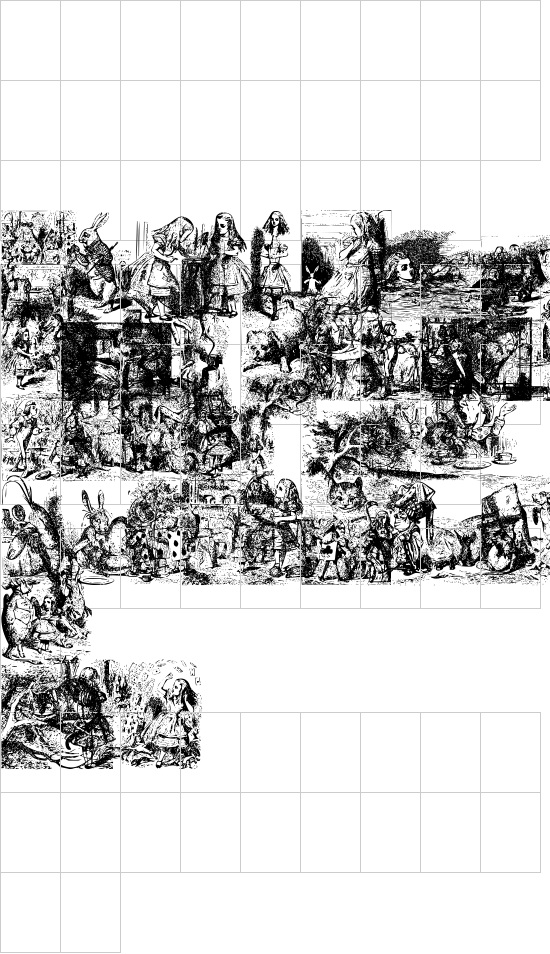
Alice in Wonderland
About Alice in Wonderland
Alice in Wonderland is a dingbat font filled with whimsical illustrated glyphs drawn from a storybook world. Rather than letters, each key delivers a small picture, capturing the curious, fairytale mood of the tale in ready-made artwork.